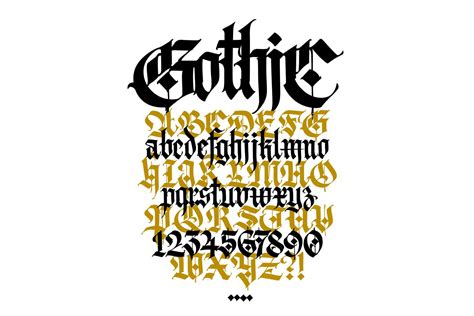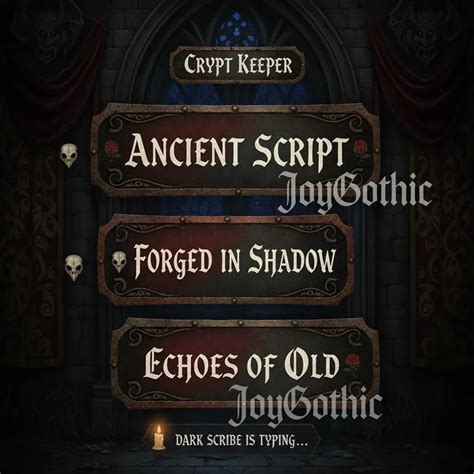
In the realm of typography, few styles evoke as much intrigue and mystery as the Gothic font. Known for its dramatic and ornate design, the Gothic font has been a staple in various forms of media, from horror movies to medieval-themed literature. One of the most fascinating aspects of this font is its versatility, particularly when it comes to digital applications. Whether you're designing a website, creating a poster, or simply looking to add a touch of elegance to your documents, understanding how to effectively use a Gothic font copy paste can significantly enhance your project's aesthetic appeal.
Understanding Gothic Fonts
Gothic fonts, also known as Blackletter or Old English fonts, are characterized by their intricate and often dense letterforms. These fonts have a rich history dating back to the Middle Ages, where they were used extensively in religious texts and official documents. The Gothic font's distinctive features include:
- Thick, bold strokes
- Elaborate serifs and flourishes
- A vertical emphasis that gives a sense of formality and grandeur
Today, Gothic fonts are often used to convey a sense of tradition, elegance, and sometimes, a touch of the macabre. They are particularly popular in genres like horror, fantasy, and historical dramas.
How to Use Gothic Font Copy Paste Effectively
Using a Gothic font copy paste in your digital projects can be a straightforward process, but there are a few key considerations to keep in mind. Hereโs a step-by-step guide to help you get started:
Choosing the Right Gothic Font
Before you begin, it's essential to select a Gothic font that aligns with your project's theme and tone. There are numerous Gothic fonts available, each with its unique characteristics. Some popular options include:
- Old English Text MT
- Cloister Black
- Goudy Text
- Harlow Solid Italic
When choosing a Gothic font, consider the readability and legibility of the text. While Gothic fonts are visually striking, they can sometimes be difficult to read, especially in smaller sizes or on digital screens.
Copying and Pasting Gothic Font Text
Once you have selected your Gothic font, the next step is to copy and paste the text into your project. Hereโs how you can do it:
- Open a text editor or word processor that supports Gothic fonts.
- Type or paste your text into the document.
- Highlight the text you want to format.
- Go to the font selection menu and choose your desired Gothic font.
- Adjust the font size and other formatting options as needed.
- Copy the formatted text and paste it into your project.
Itโs important to note that not all platforms support Gothic fonts natively. If you encounter issues, you may need to convert the text to an image or use a web font that supports Gothic styles.
Applications of Gothic Font Copy Paste
Gothic fonts can be used in a variety of applications, from print media to digital content. Here are some common uses:
Web Design
Incorporating a Gothic font copy paste into your web design can add a unique and memorable touch to your website. Gothic fonts are particularly effective for:
- Headings and titles
- Logos and branding elements
- Special event announcements
However, itโs crucial to use Gothic fonts sparingly and in combination with more readable fonts for body text. This ensures that your website remains accessible and user-friendly.
Print Media
Gothic fonts are a popular choice for print media, including:
- Posters and flyers
- Invitations and greeting cards
- Book covers and chapter headings
When using Gothic fonts in print media, pay attention to the contrast and spacing of the text. Gothic fonts can be dense, so ensuring adequate white space around the text is essential for readability.
Digital Content
Gothic fonts can also enhance digital content such as:
- Social media posts
- Email newsletters
- Presentations and slideshows
For digital content, consider using Gothic fonts for headlines or key phrases rather than entire paragraphs. This approach maintains the visual appeal of the font while ensuring the content remains readable.
Best Practices for Using Gothic Fonts
While Gothic fonts can add a dramatic flair to your projects, there are some best practices to keep in mind to ensure they are used effectively:
Readability
Gothic fonts can be challenging to read, especially in smaller sizes. To enhance readability:
- Use Gothic fonts for headings and short phrases rather than body text.
- Ensure there is sufficient contrast between the text and the background.
- Adjust the font size to make the text legible.
Consistency
Consistency is key when using Gothic fonts. Ensure that the font style is consistent throughout your project to maintain a cohesive look. Mixing too many different fonts can make your design appear cluttered and unprofessional.